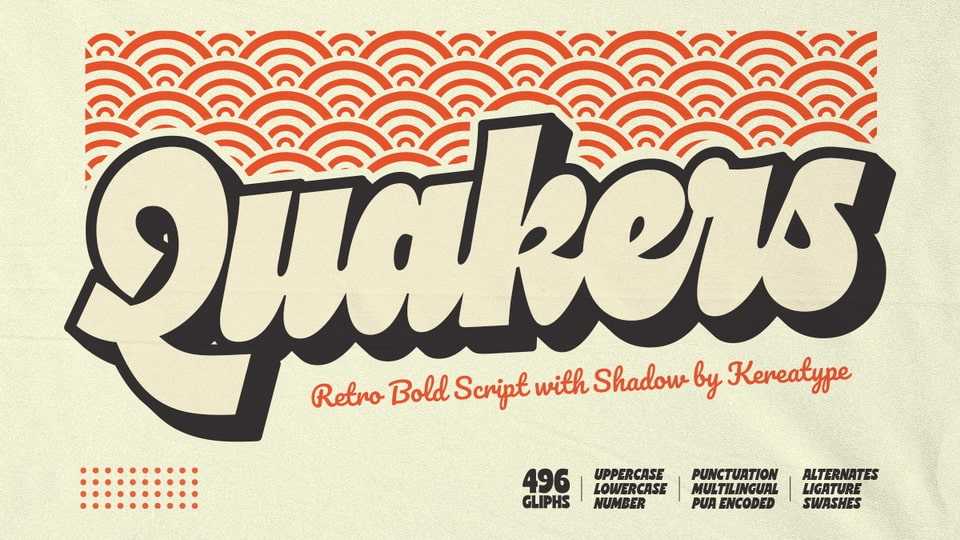
Download Quakers font, an italic typeface, transformed into a captivating script. Embracing the essence of retro design, Quakers exudes an aura of vintage elegance combined with modern boldness and elegance.
Designer: Kereatype Studio